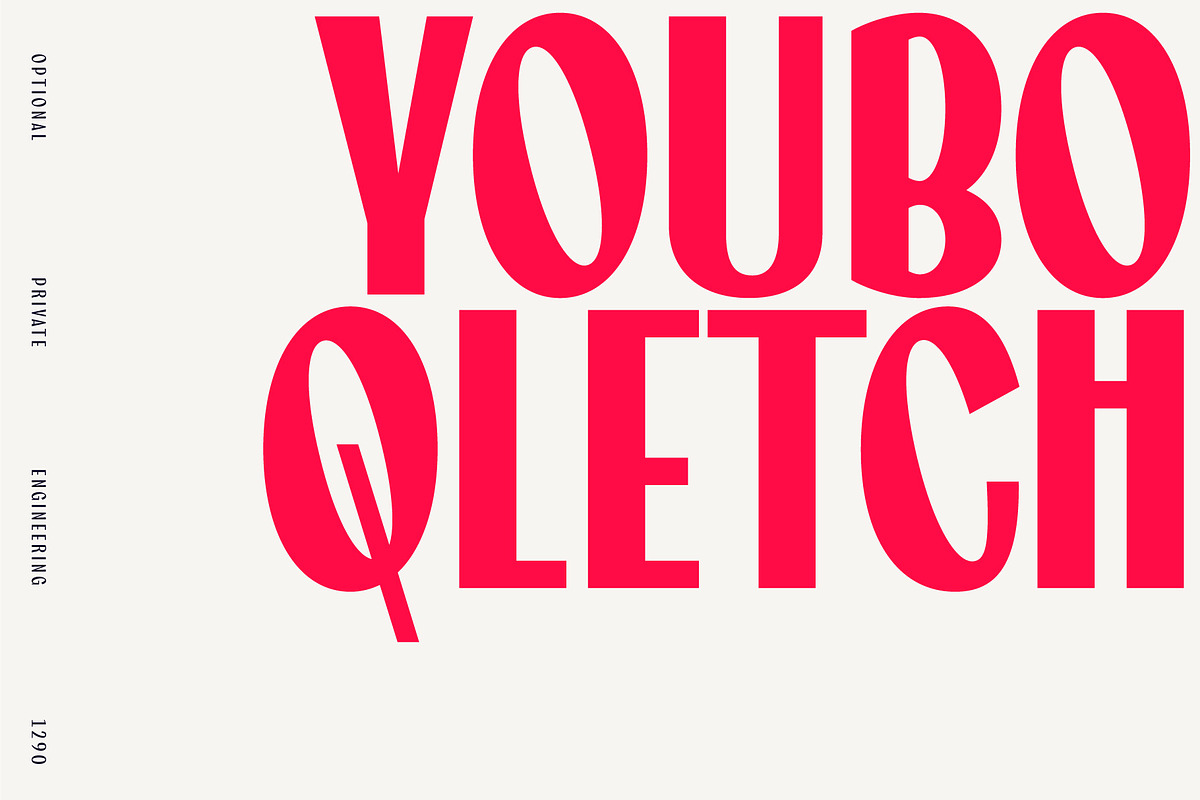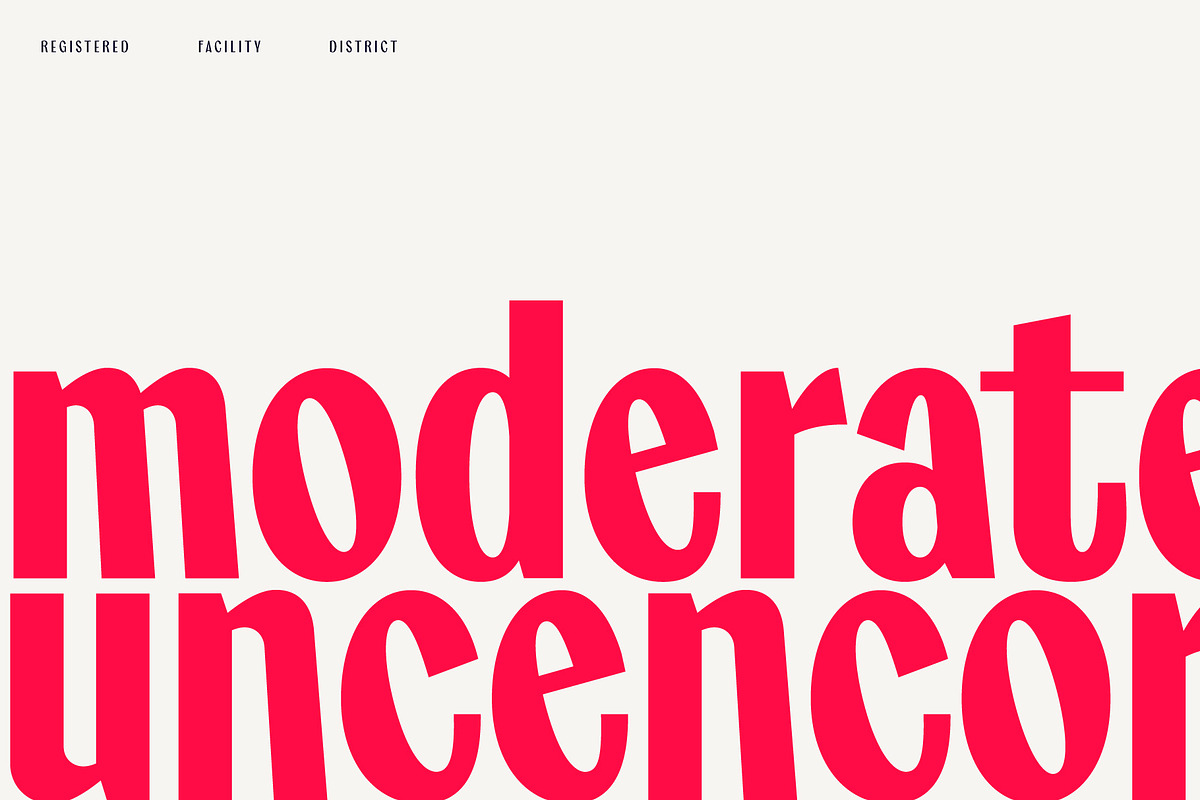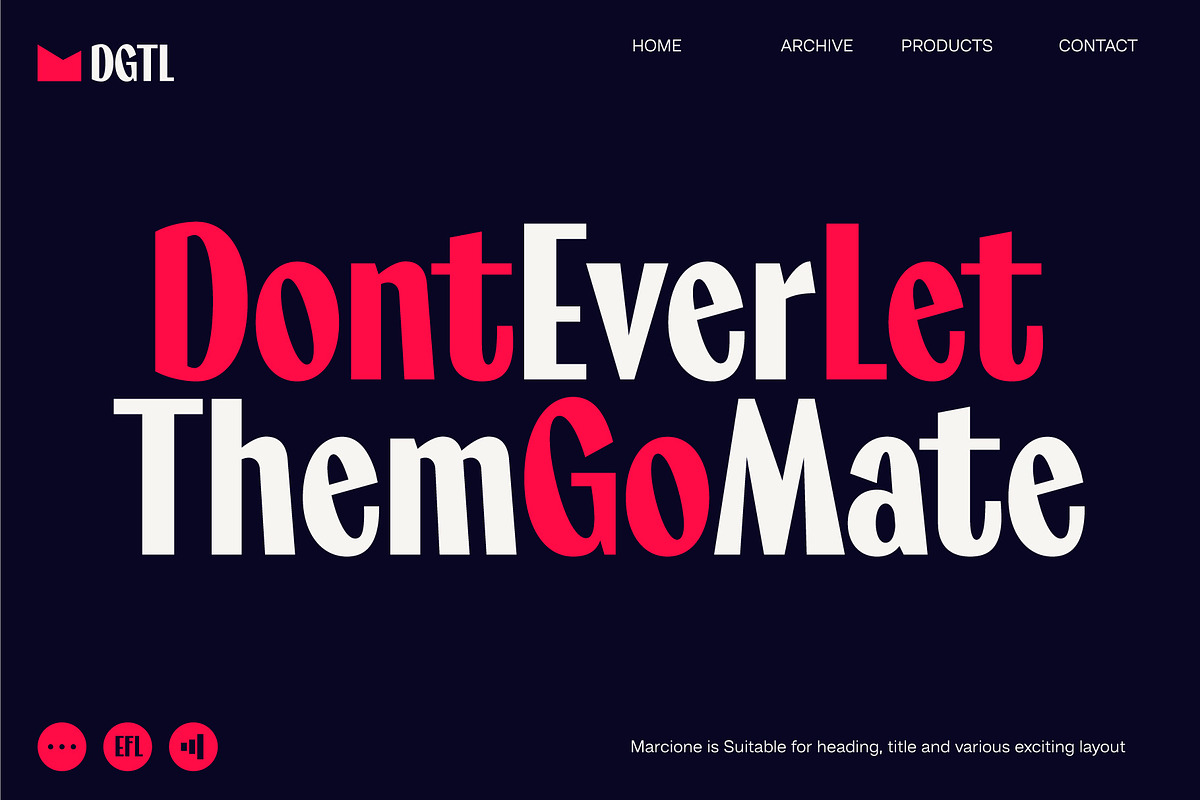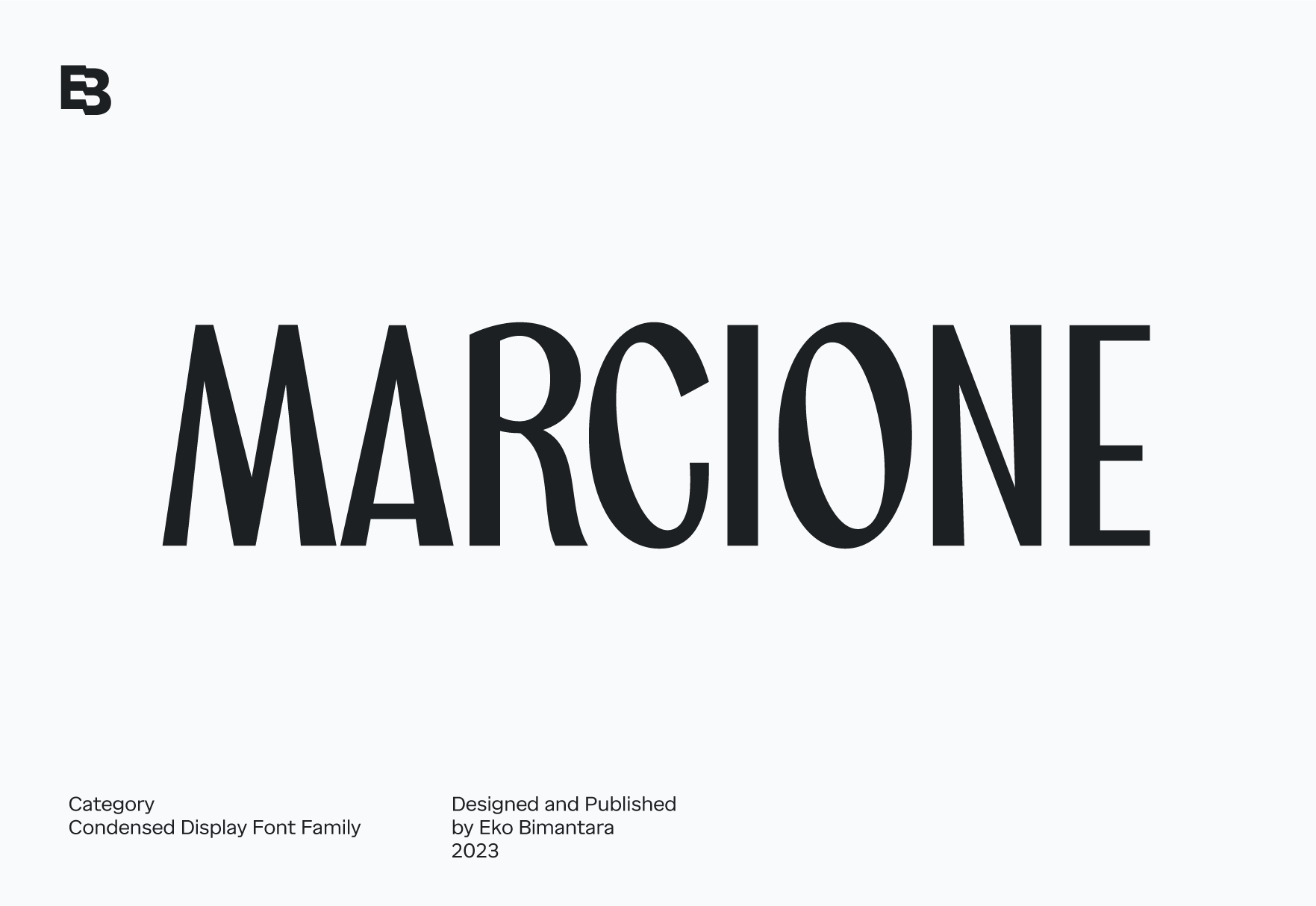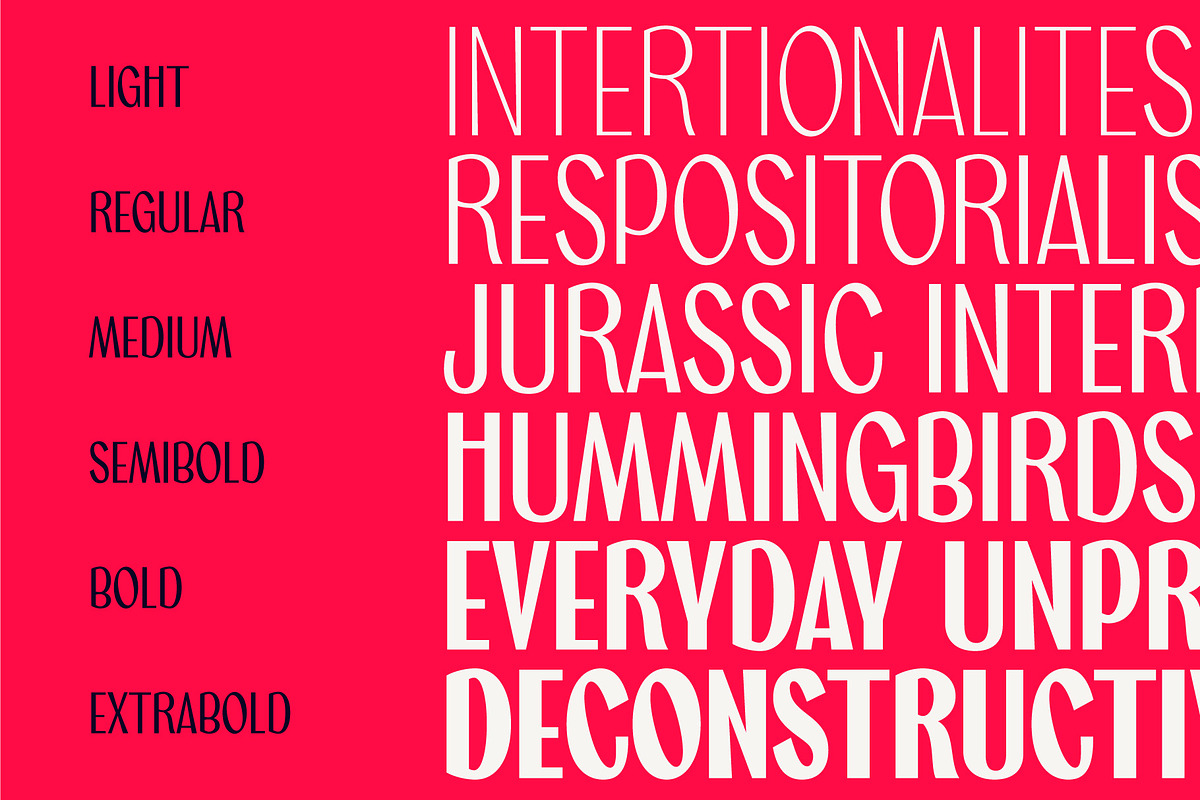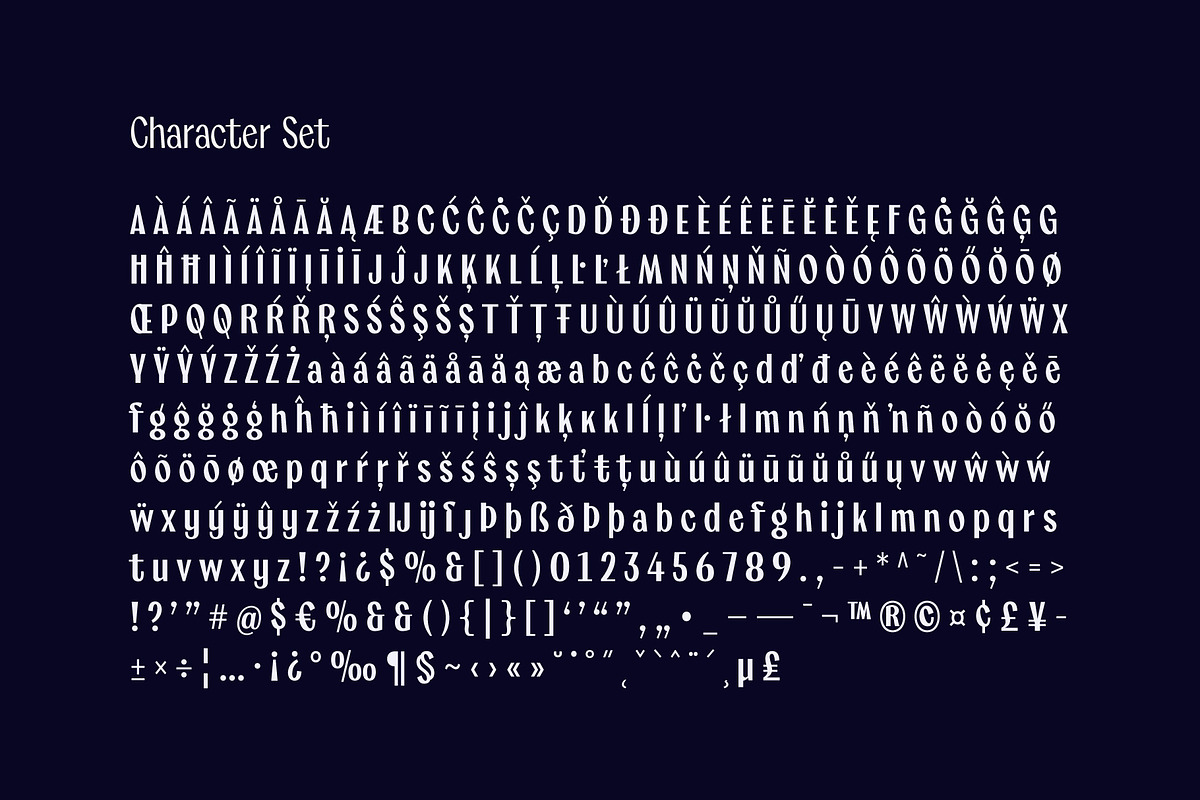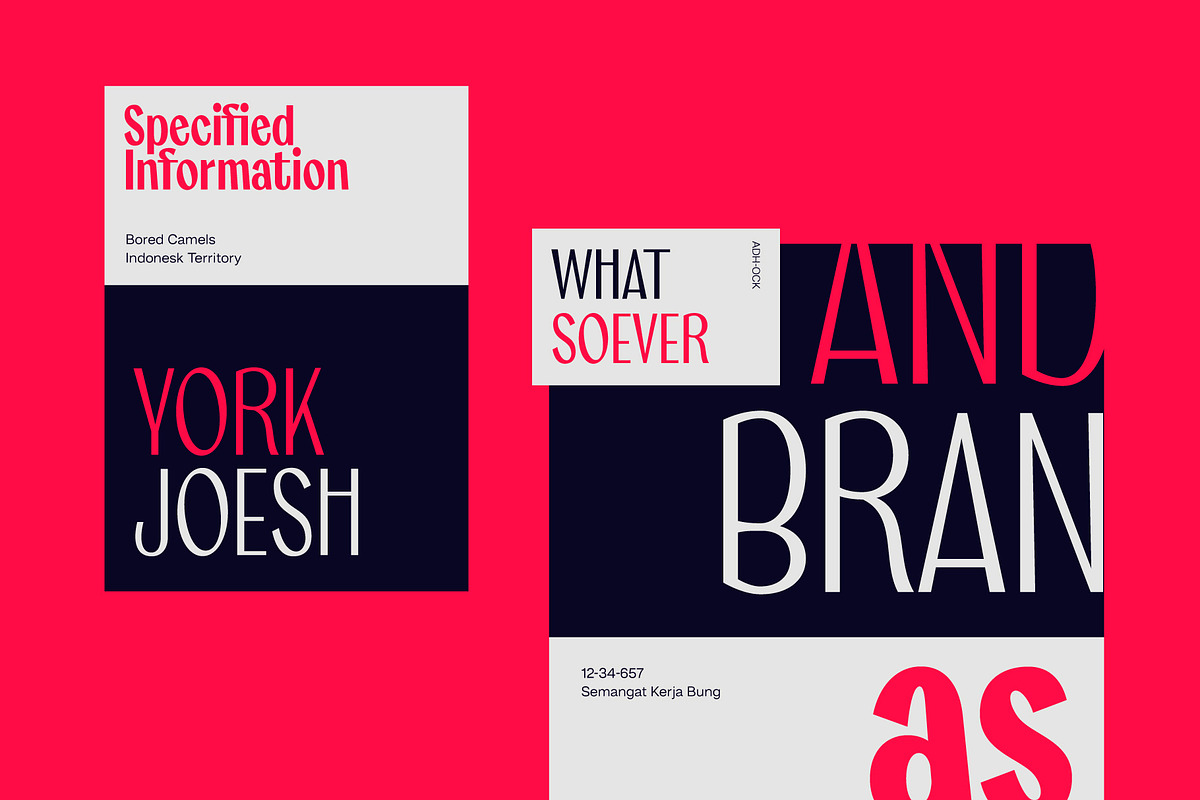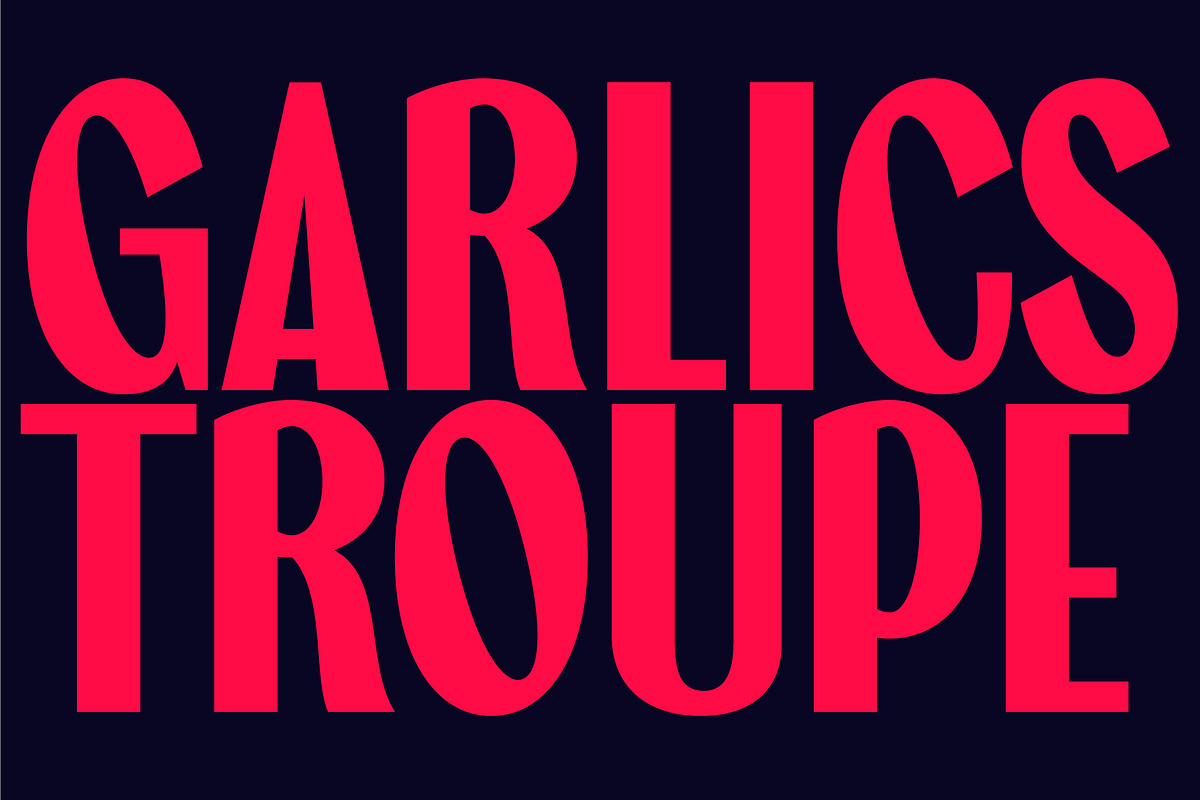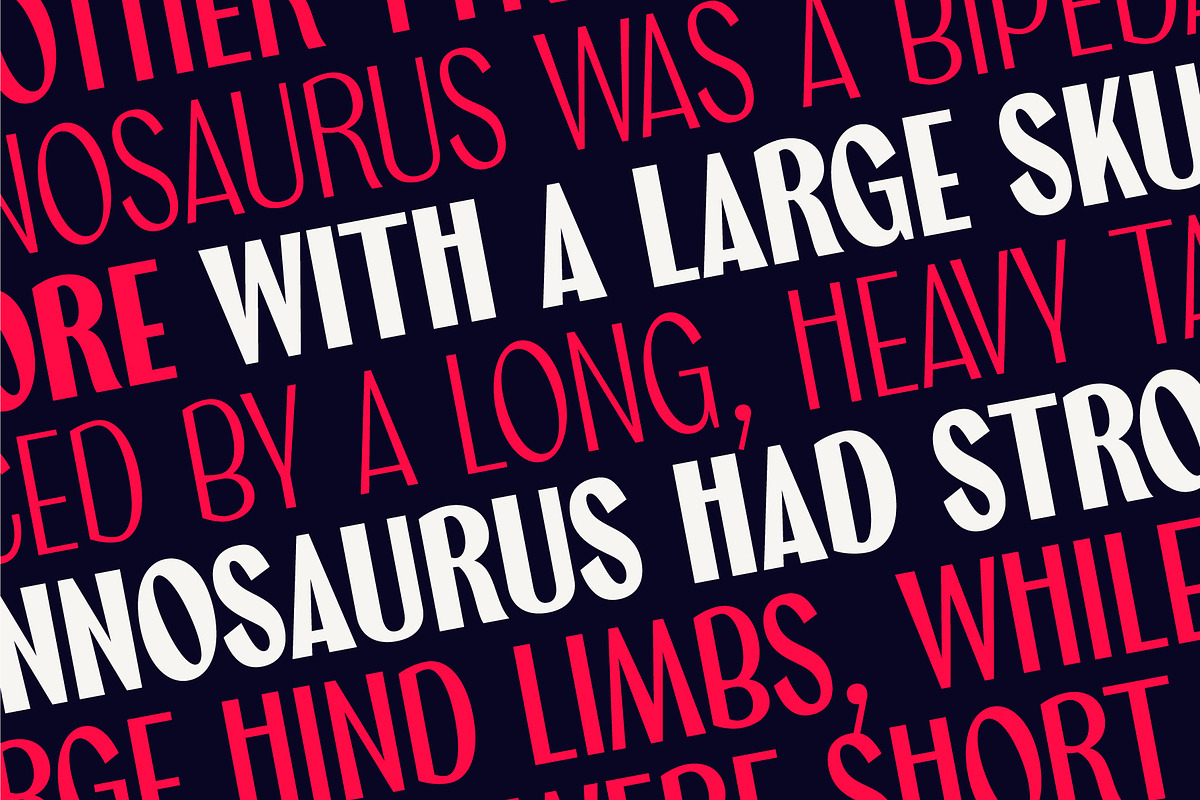
Marcione; Condensed Font Family
Marcione is the real deal, a contemporary and dynamic condensed display font family that blends the classic Deco and Grotesk styles in a playful and modern way. This font family got personality, you can see it right away in the lowercase letters, with a diagonal stem in characters like “a”, “h”, “m”, and “n” that gives it that extra kick.
You can use Marcione to create some killer designs in editorial, branding, or advertising. This font family packs a punch with six distinct styles, ranging from Light to ExtraBold, and it’s got you covered with broad Latin language support. That means no matter where you’re from, Marcione can help you make a statement.
This font is highly versatile and visually engaging, a true boss. With its condensed design, it takes up minimal space while still commanding attention and conveying a sense of sophistication. Trust me, you won’t regret having Marcione in your font library, it’s the real deal.